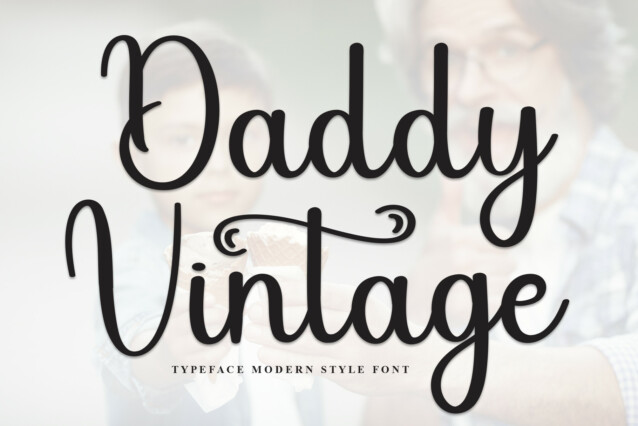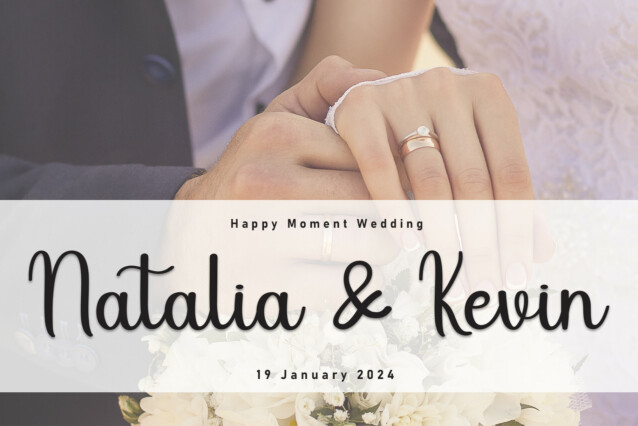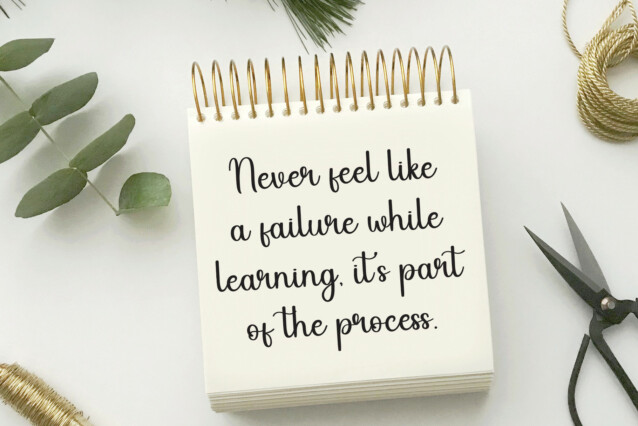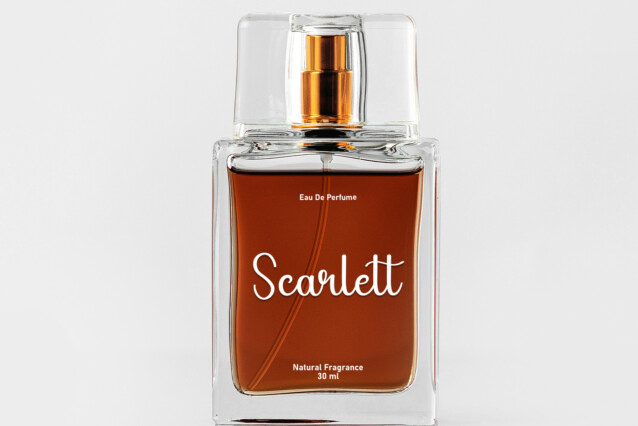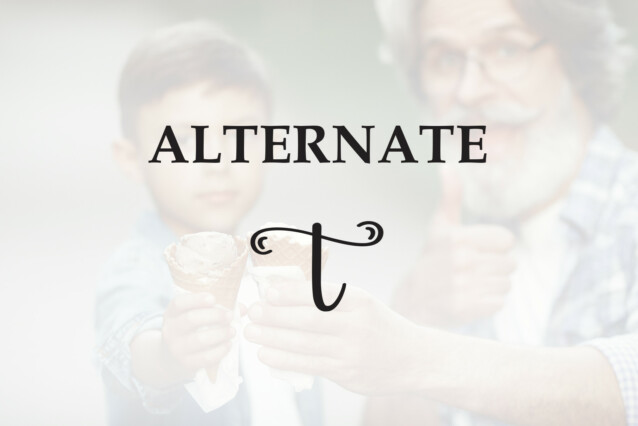
Daddy Vintage Script Font
Daddy Vintage Script Font is a sweet and friendly handwritten display font. Cute and fun, this font is ideal for writing wedding invitations, cards, or any other design that might need a playful touch!